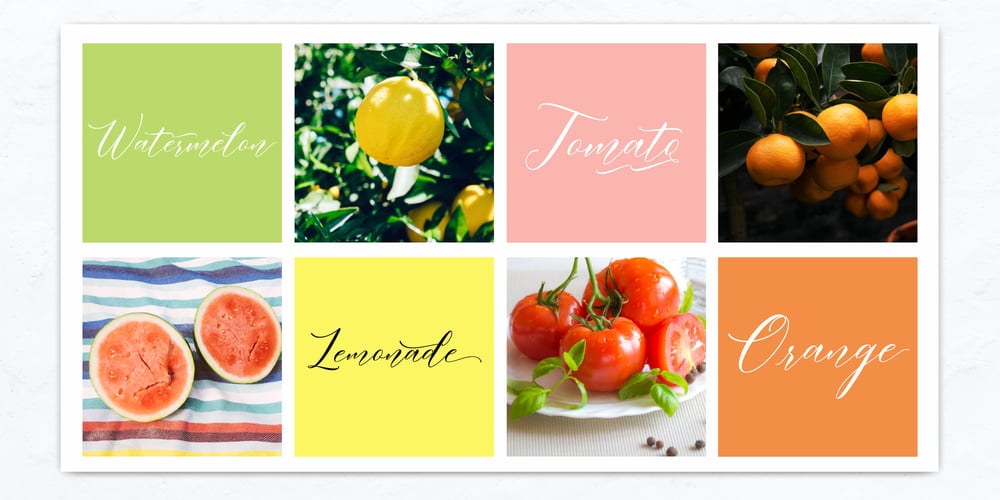
Meetha Script
Meetha Script font
Meetha Script Font Family was designed by Juni Fadil Putra and published by FadeLine Studio. Meetha Script contains 1 styles and family package options. Meetha Script is modern calligraphy script font. This is a beautiful script font with italic style. Made gently and danced to give the character of modern writing that is sweet, simple, stylish and firm. With a style like this, this font will be suitable in use for logo’s, branding projects, homeware designs, product packaging, mugs, quotes, posters, shopping bags, logo’s, t-shirts, book covers, name card, invitation cards, greeting cards, and all your other lovely projects.